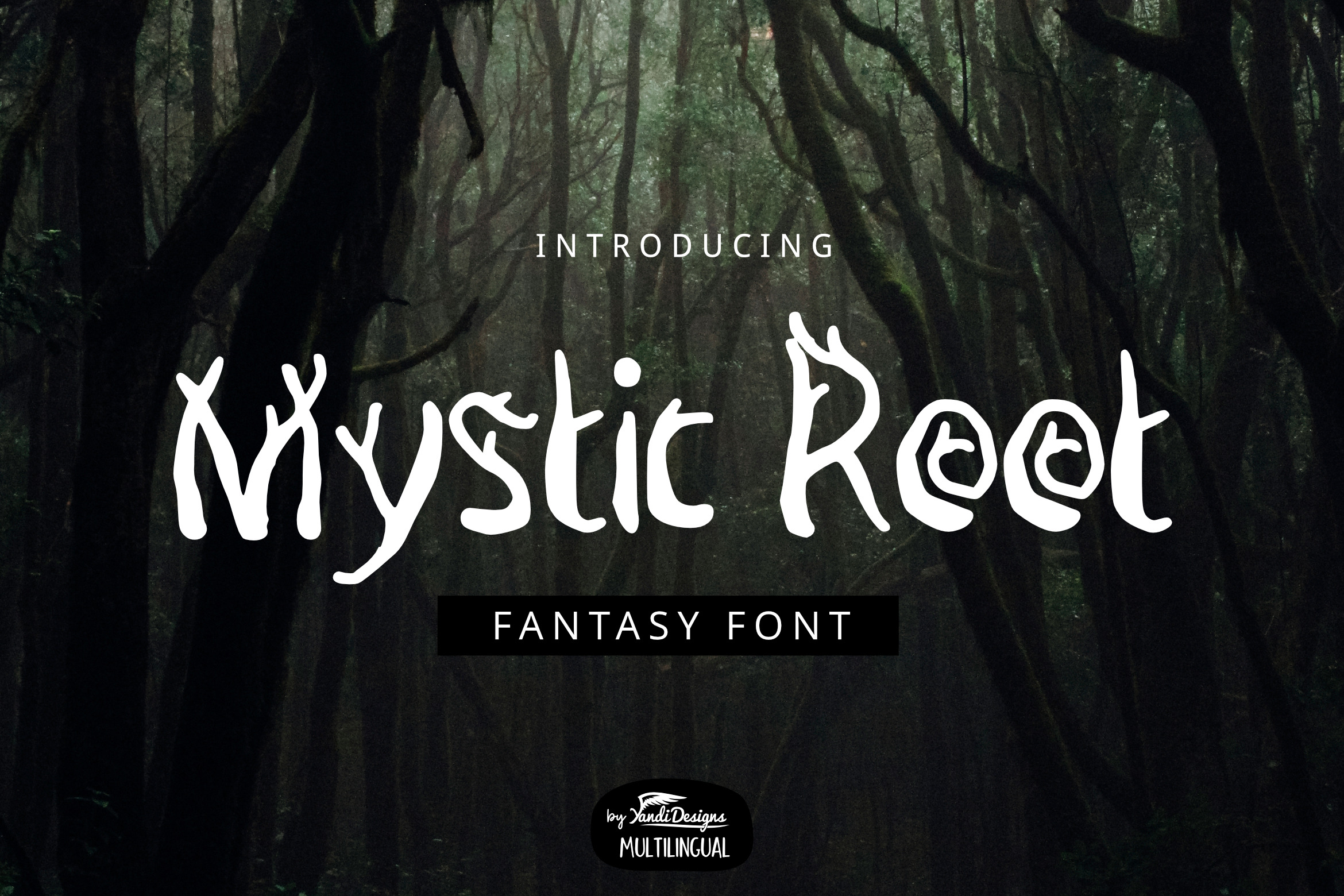
Mystic Root Font
Mystic Root Font is fantasy multipurpose handmade font, suitable for many project children book, quotes, logo , heading , title etc.